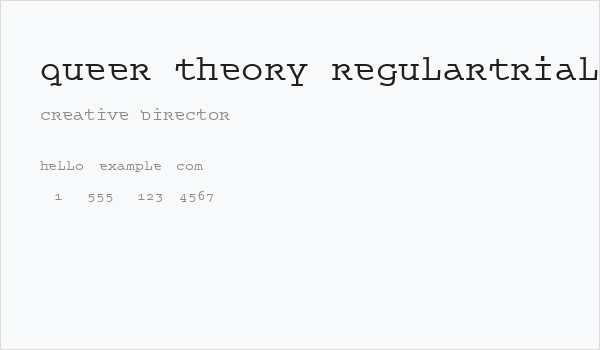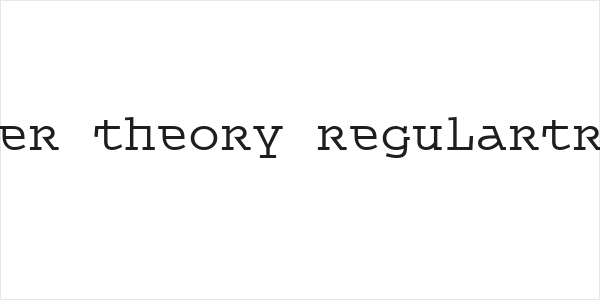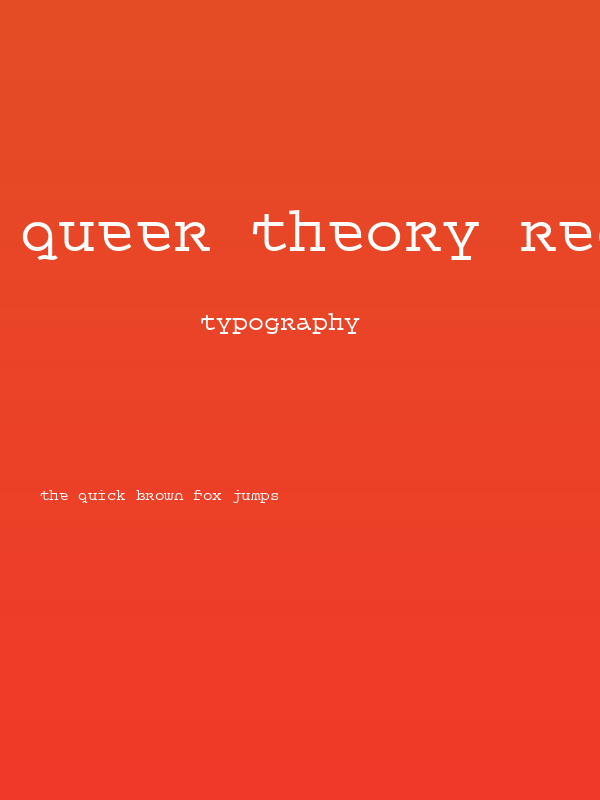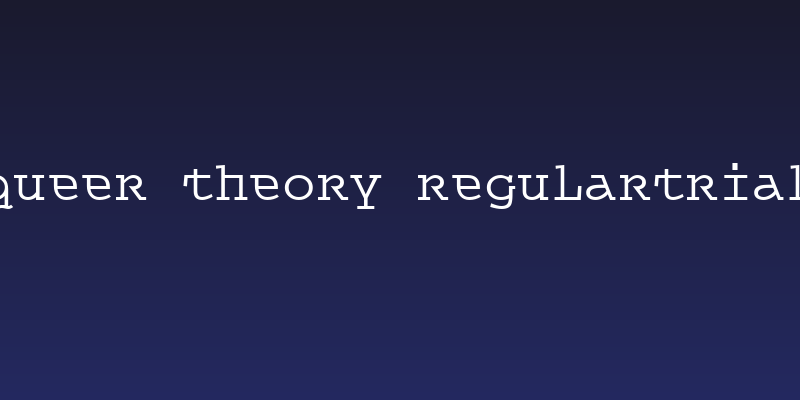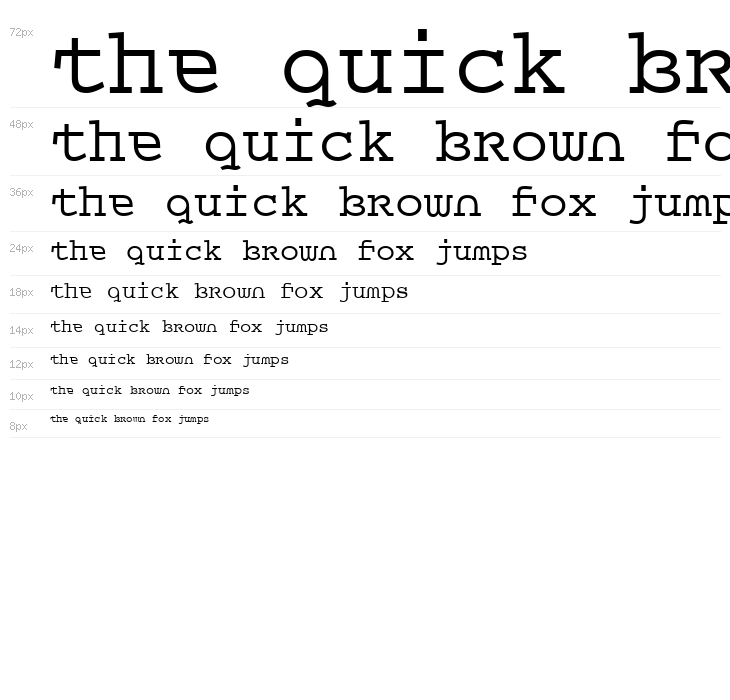
Queer Theory RegularTrial Font
Queer Theory RegularTrial Description
This font features a unique and playful design with a modern twist. The characters exhibit a blend of geometric and organic shapes, creating a distinctive and eye-catching appearance. The uppercase and lowercase letters maintain a consistent style, with rounded edges and subtle serifs that add a touch of elegance. The numerals are bold and clear, ensuring readability. The overall design is both quirky and sophisticated, making it suitable for creative and contemporary projects.